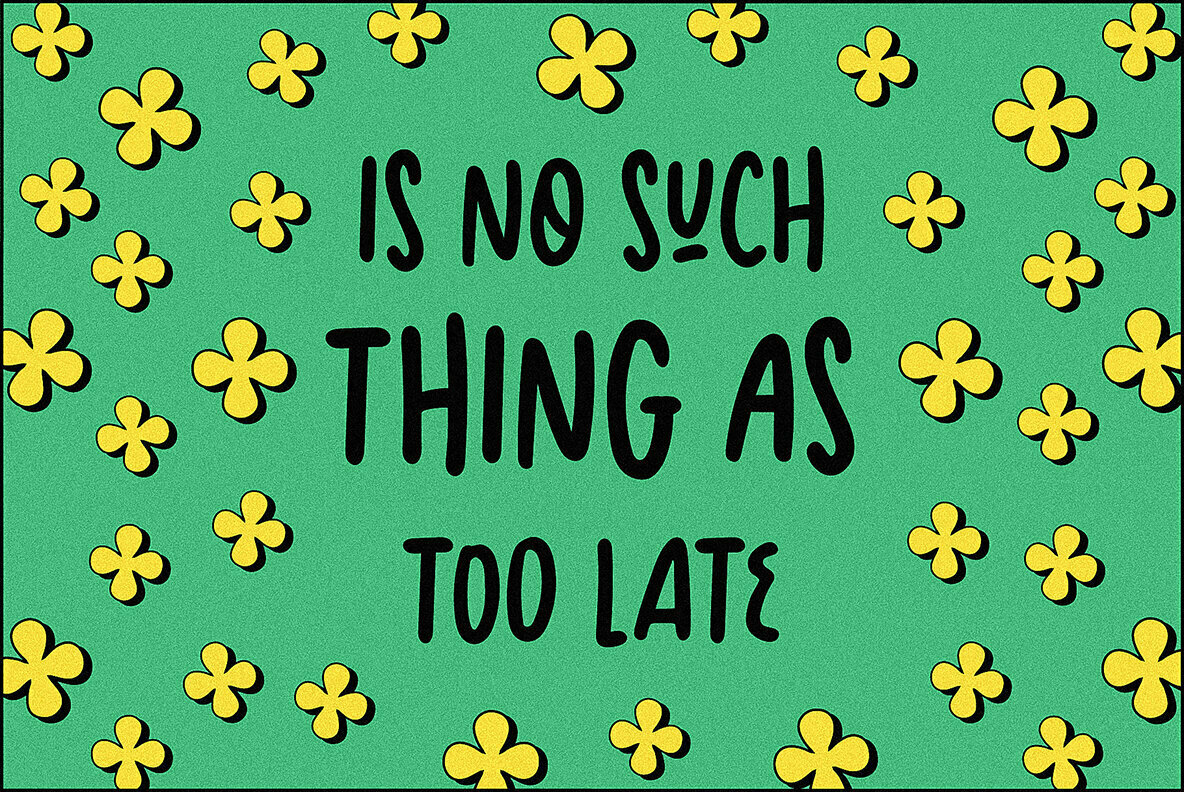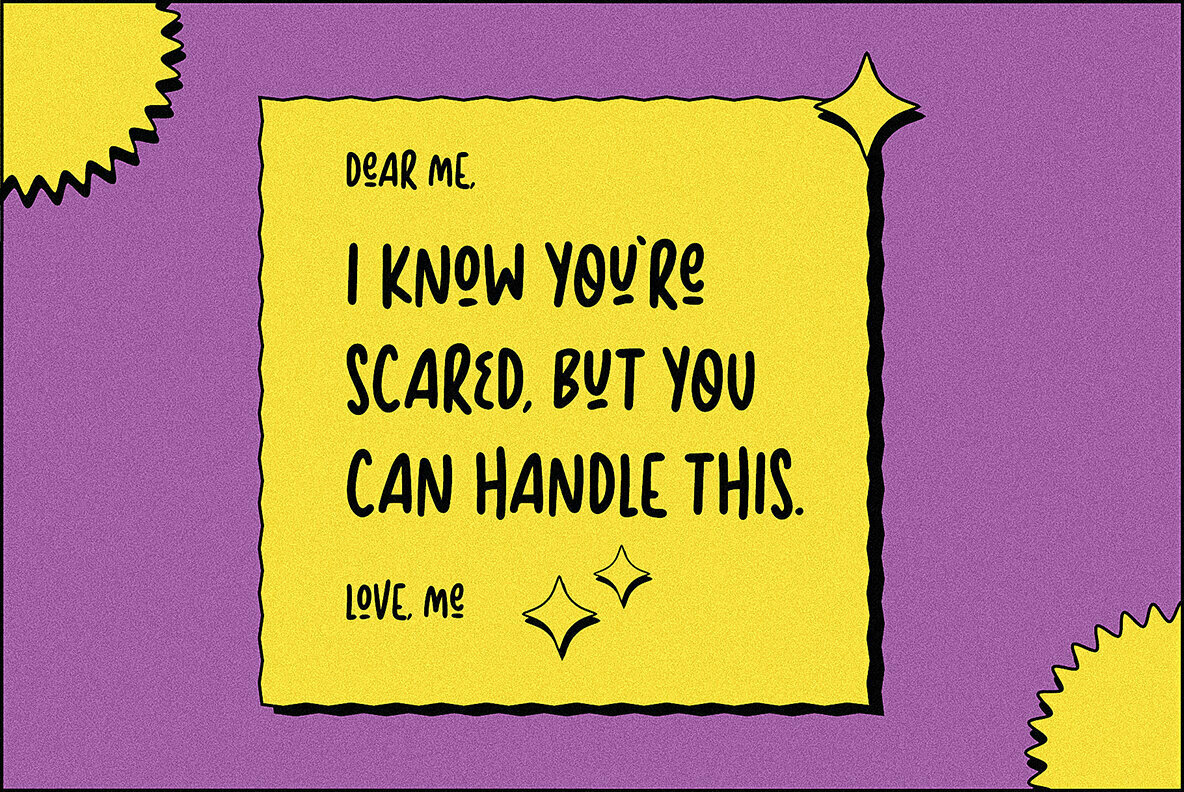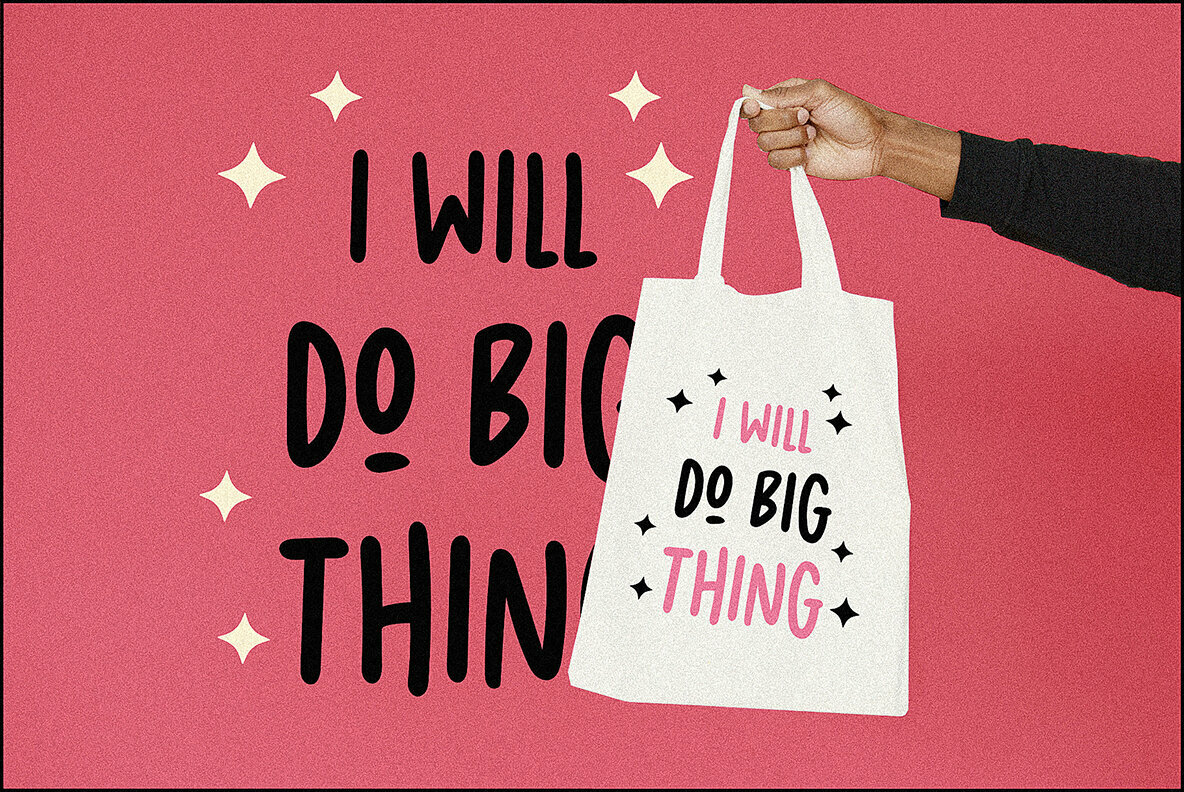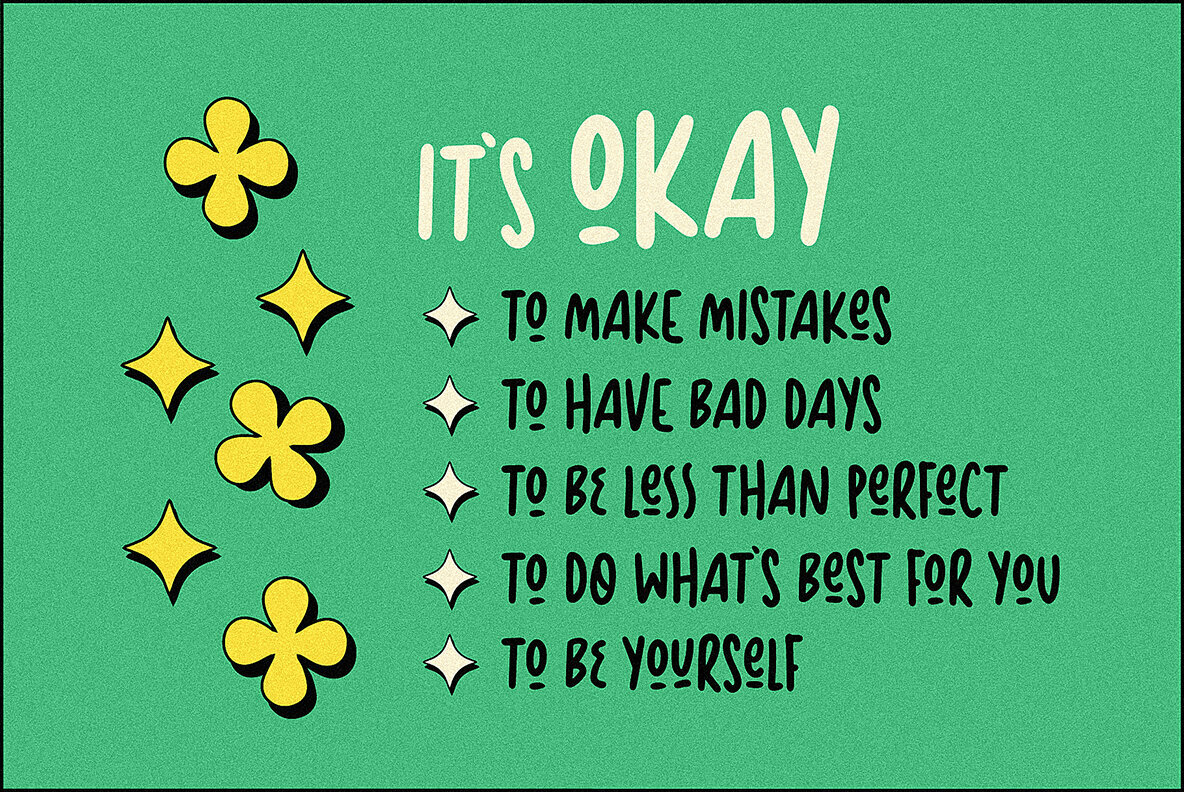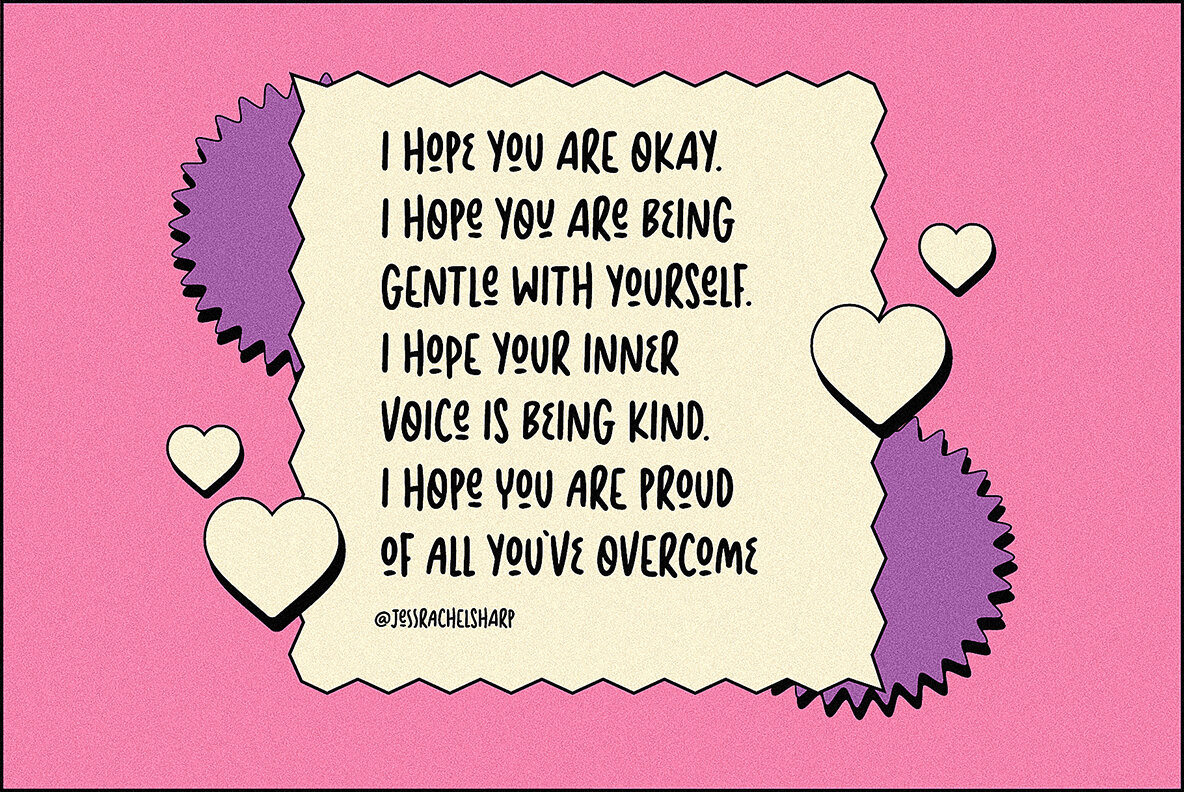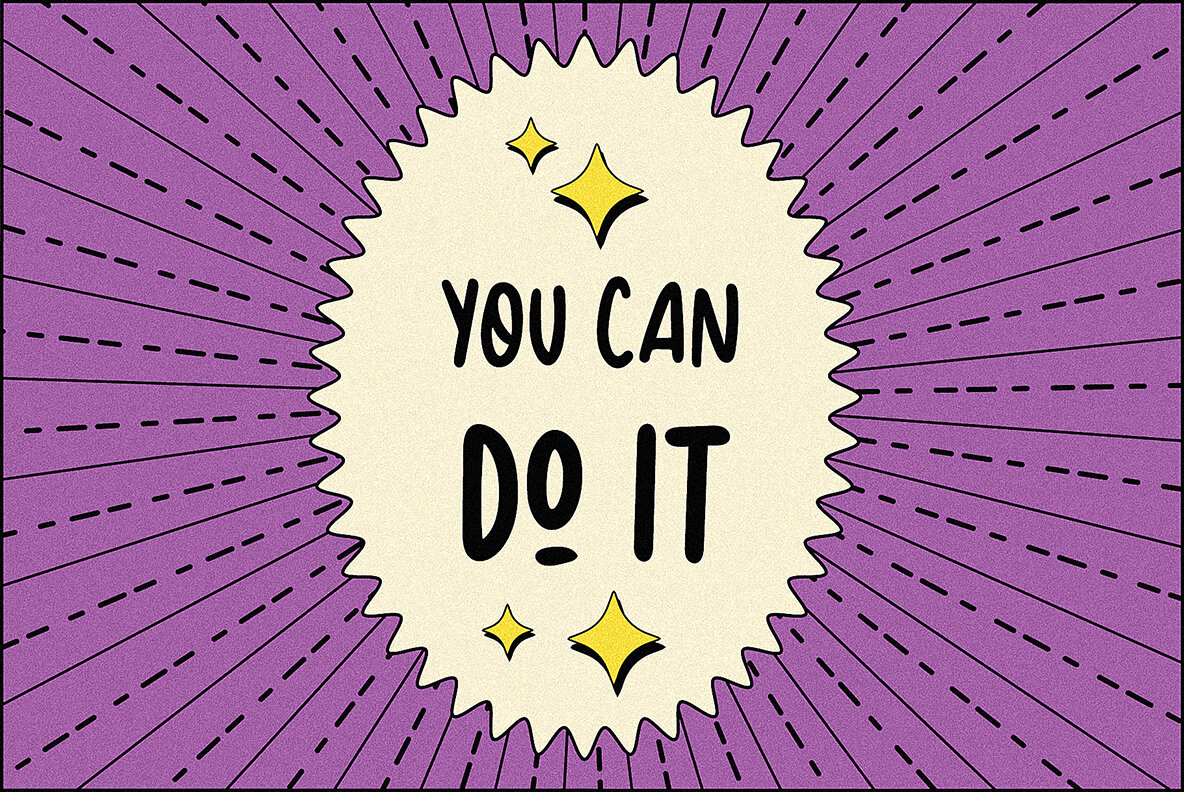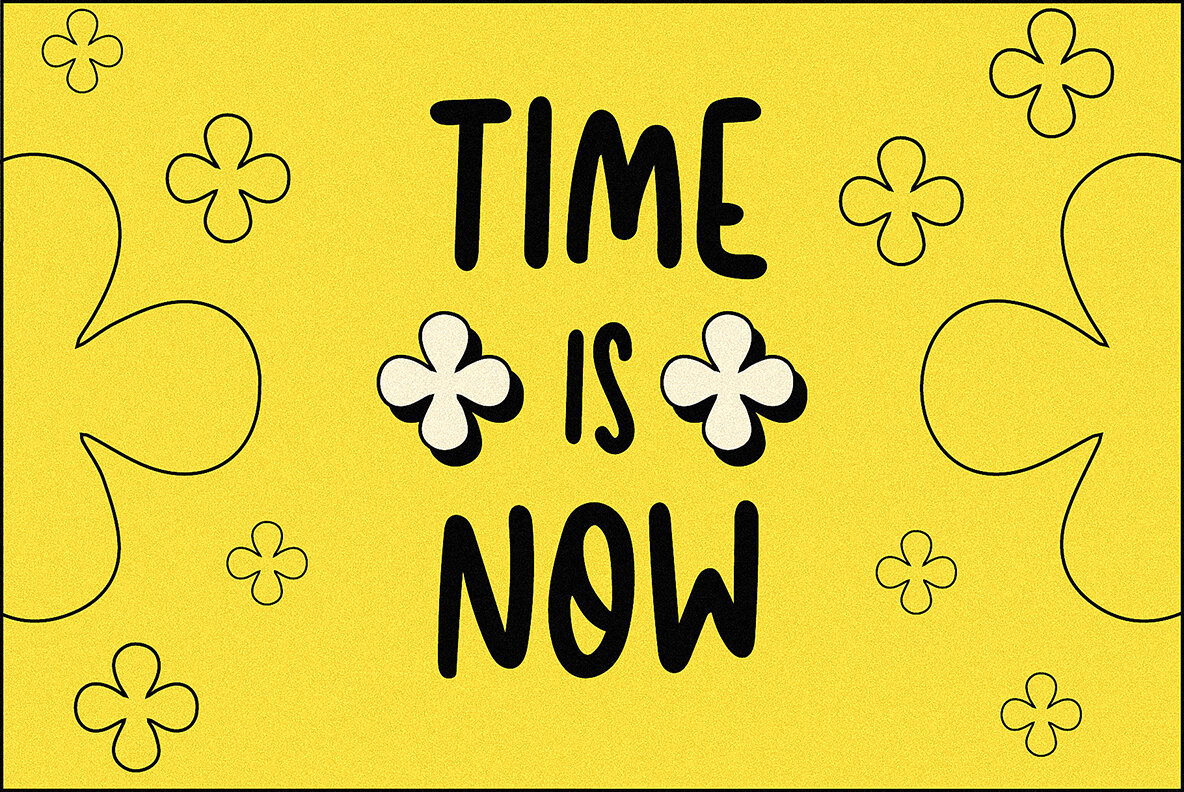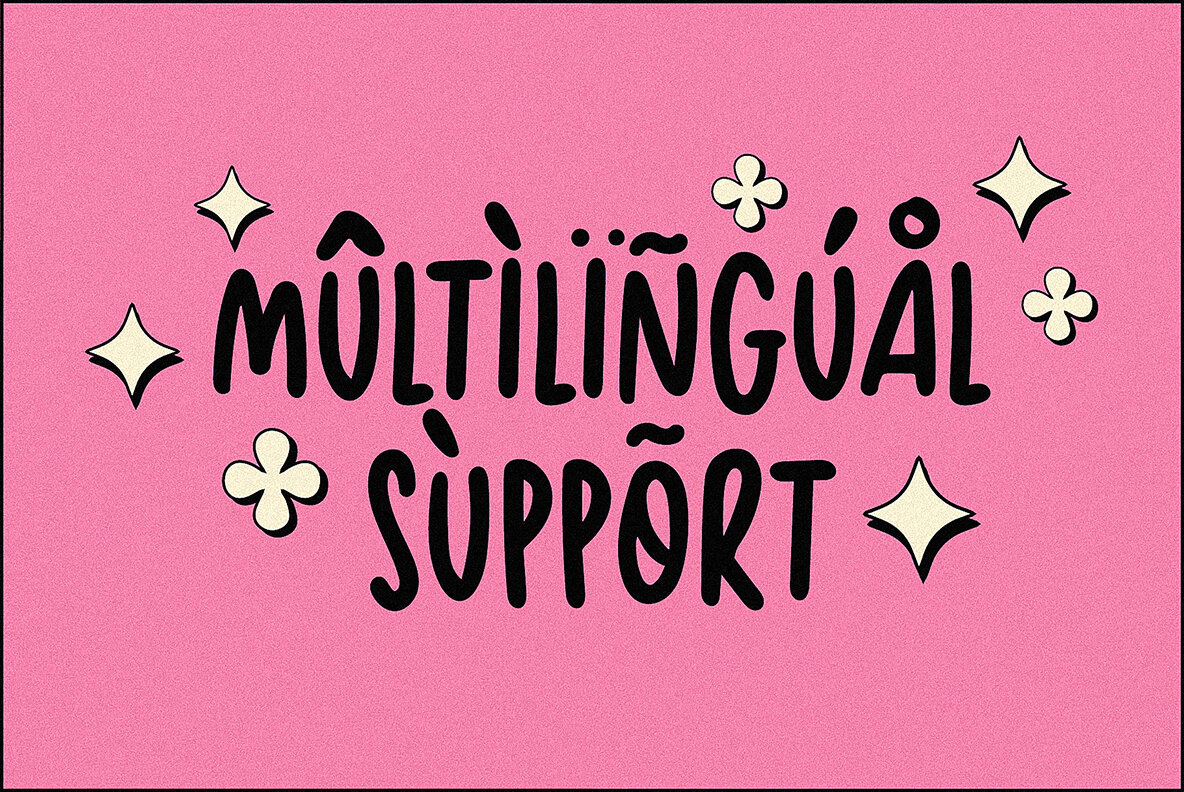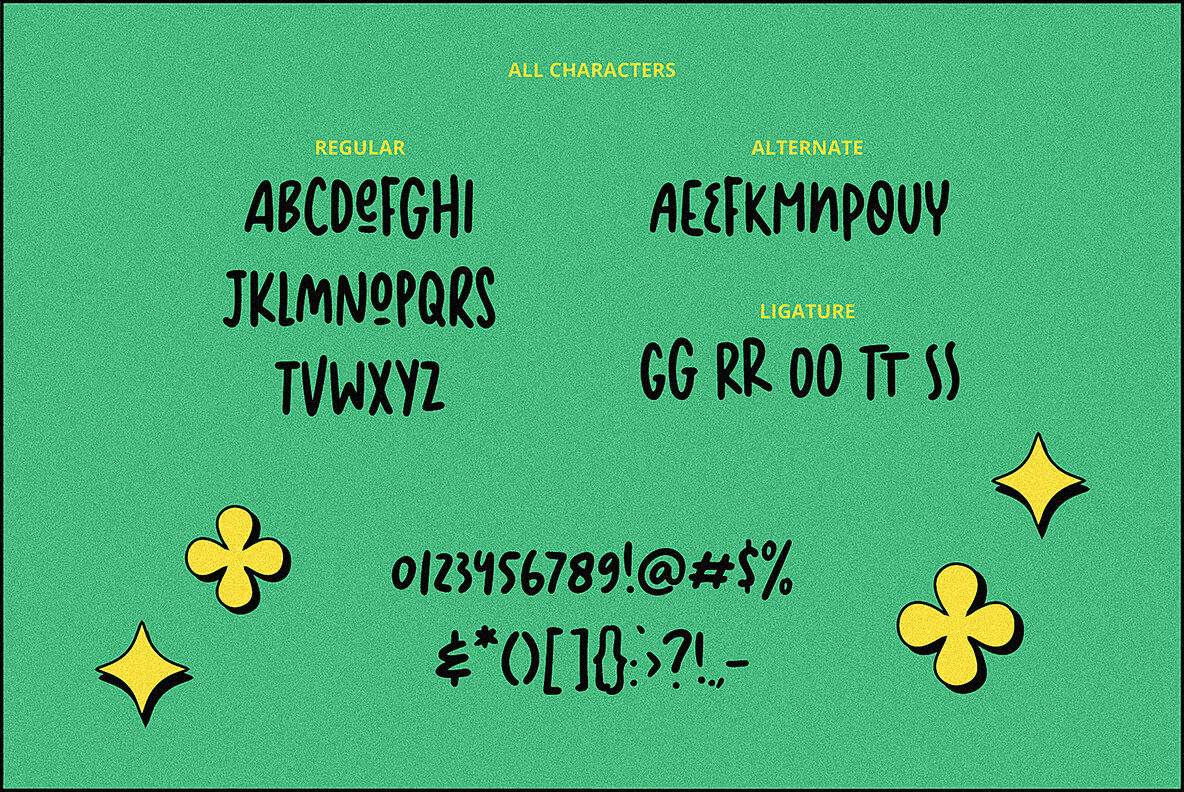
Naughty Youth Font
Naughty Youth
The fascinating world of design often demands a delicate balance between creativity and functionality. Naughty Youth harmonizes these elements by marrying a handwritten flair with an all-caps format. This combination infuses your projects with a playful yet refined visual identity, capturing attention effortlessly. Features: As designers seek fonts that push boundaries while maintaining clarity, Naughty Youth becomes an invaluable asset in any creative toolkit. This typeface not only elevates aesthetics but also reinforces your brand's unique personality.Naughty Youth: Handwritten Charm Meets Modern Typography